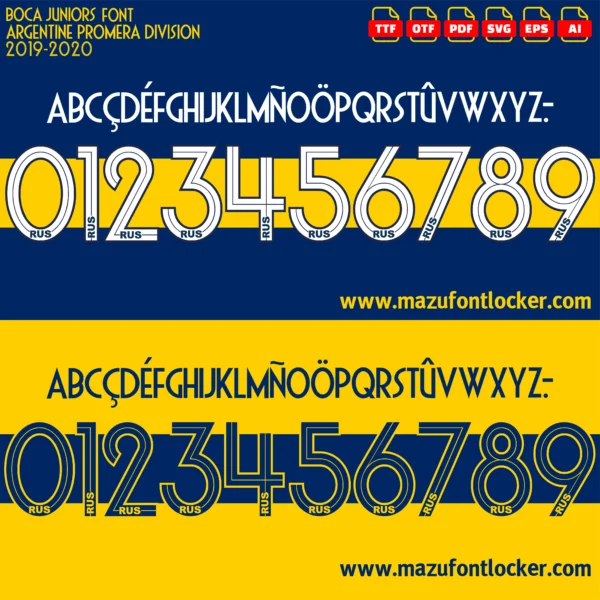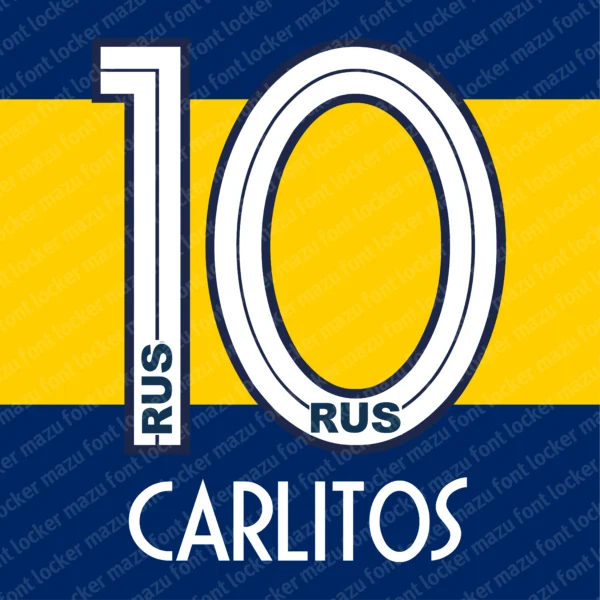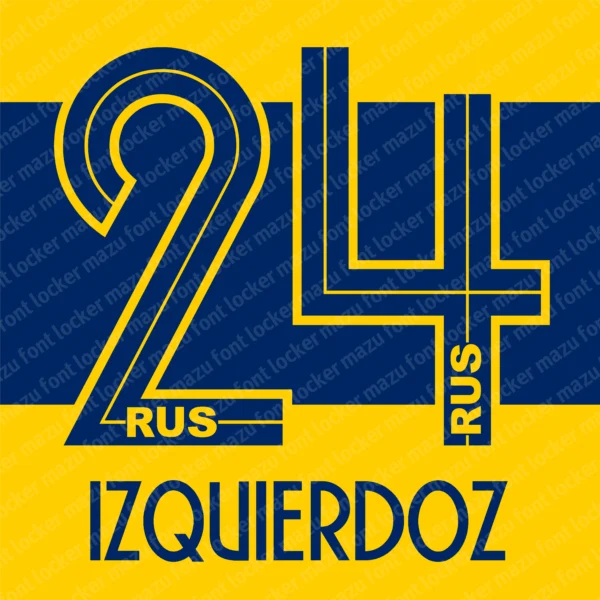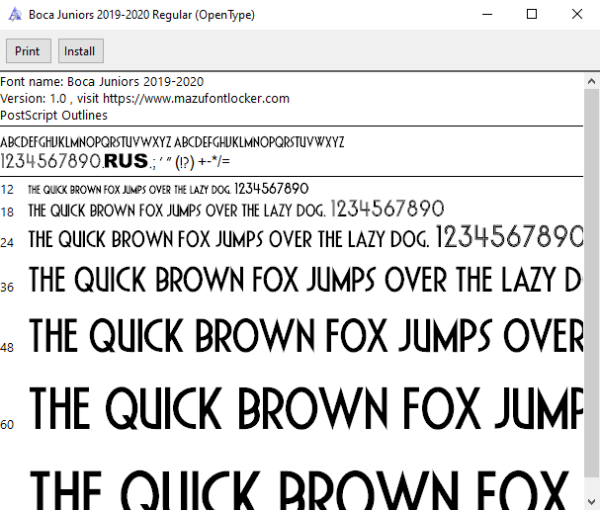
Boca Juniors 2019-2020 Font Vector – Ultimate Bombonera Warrior Masterpiece
This premium font captures the commanding, iconic, majestic, and war-machine lettering that embodies the unstoppable Xeneize spirit — delivering raw Buenos Aires fury, explosive La Bombonera passion, iron-clad resilience, tactical dominance, and legendary Boca warrior grit that defines one of the most passionate clubs in world football.
Boca Juniors 2019-2020 Font Vector – Authentic Blue & Yellow Typeface
The Boca Juniors 2019-2020 Font Vector is a premium typeface that accurately recreates the official match lettering worn by Boca Juniors during their passionate 2019-2020 season. This high-quality vector font kit captures the bold, intense, and legendary typography that represents the club’s rich heritage, fighting spirit, and iconic Argentine football journey of the Xeneizes.
Why Choose Boca Juniors 2019-2020 Font Vector
This font stands out because of its sharp vector precision and strong club identity. Every letter and number is crafted to match the exact style used on the players’ shirts during Boca Juniors’ memorable 2019-2020 season. Whether you are creating realistic kit templates or exciting Xeneizes-themed content, the Boca Juniors 2019-2020 Font Vector gives your designs that authentic La Bombonera atmosphere.
The letterforms in the Boca Juniors 2019-2020 Font Vector are bold, clean, and highly readable. The strokes feature powerful geometric construction combined with modern athletic styling and traditional Argentine passion, creating a professional appearance that stands out on jerseys while preserving Boca Juniors’ legendary football heritage and competitive spirit.
The numerals feature strong curves and sharp, precise edges, delivering a confident and premium appearance. This vector design ensures flawless scalability and excellent legibility across both print and digital applications.
- Full uppercase A–Z and numbers 0–9 in authentic Boca Juniors 2019-2020 style
- Includes the exact crest glyph placement used beneath player numbers
Boca Juniors 2019-2020 Season